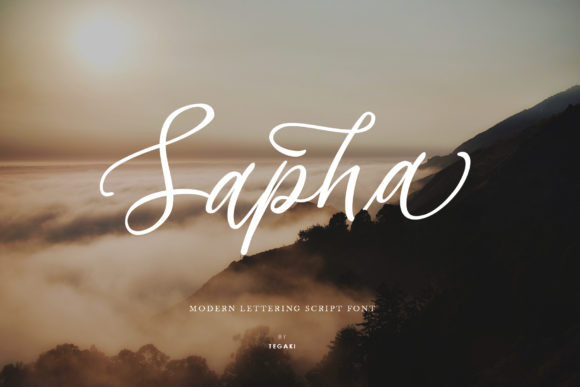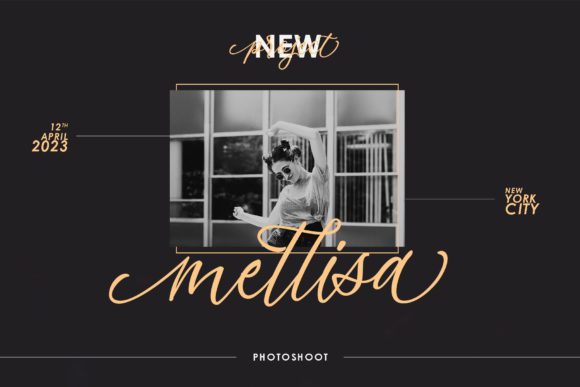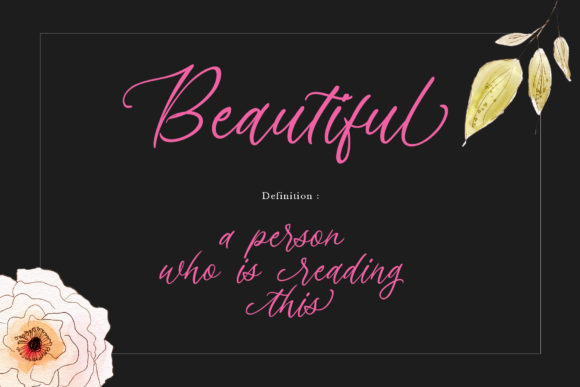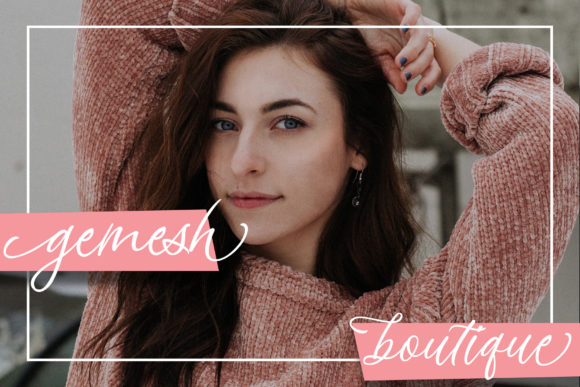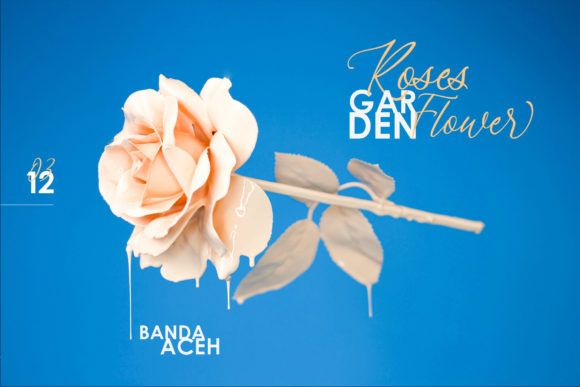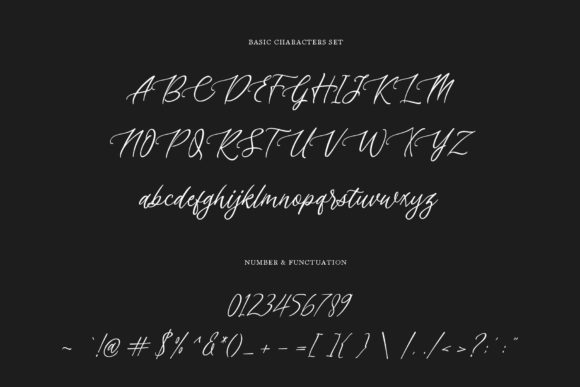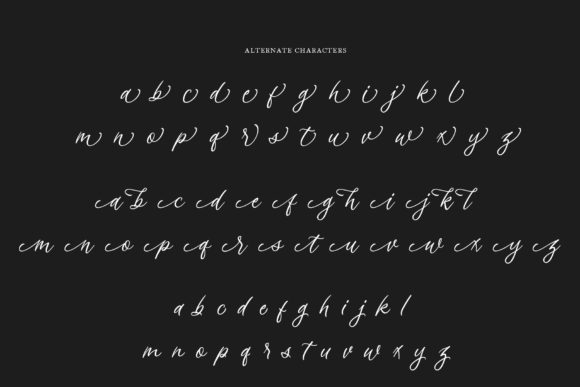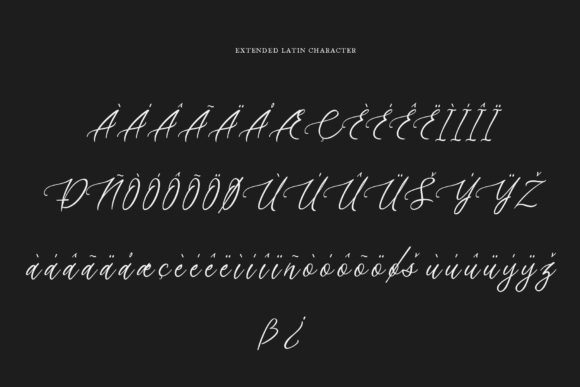
HomeScript FontsSapha Font Script Fonts Sapha Font FacebookXPinterestWhatsApp Sapha Font Poster 2 Sapha Font Poster 3 Sapha Font Poster 4 Sapha Font Poster 5 Sapha Font Poster 6 Sapha Font Poster 7 Sapha Font Poster 8 About Sapha Font Sapha is a light and fun handwritten font with a cool charm. Get inspired by its unique flavor. DOWNLOAD ON CREATIVE FABRICAThis font is sold and delivered by Creative Fabrica. Font Canyon may earn a commission if you buy through this link. People also explored Miracle Font Buxton Font Candy Roll Font Bedepa Font Rosa Signature Font Aylea Font Lemonilo Font Wonder Heart Font Amanda Font 342 0 TagsSapha Font Previous articleEvangeline FontNext articleEleanor Font LEAVE A REPLY Cancel reply Comment: Please enter your comment! Name:* Please enter your name here Email:* You have entered an incorrect email address! Please enter your email address here Website: Save my name, email, and website in this browser for the next time I comment. Personal Use Free Aldenburg Personal Use Free Read more about this font Multicolore Personal Use Free Read more about this font Scarlove Personal Use Free Read more about this font Abingdon Personal Use Free Read more about this font BLOG Where to Buy American Fonts Online in 2024 Where to Buy American Fonts Online: The Ultimate Guide for 2024 Looking for the perfect American font to elevate your design projects? You're in the... Using Fonts in Digital Marketing: Tips to Strengthen Your Brand Identity To increase your work productivity, choose the most readable fonts. Modern Sans-Serif Fonts That Brands Love in 2025